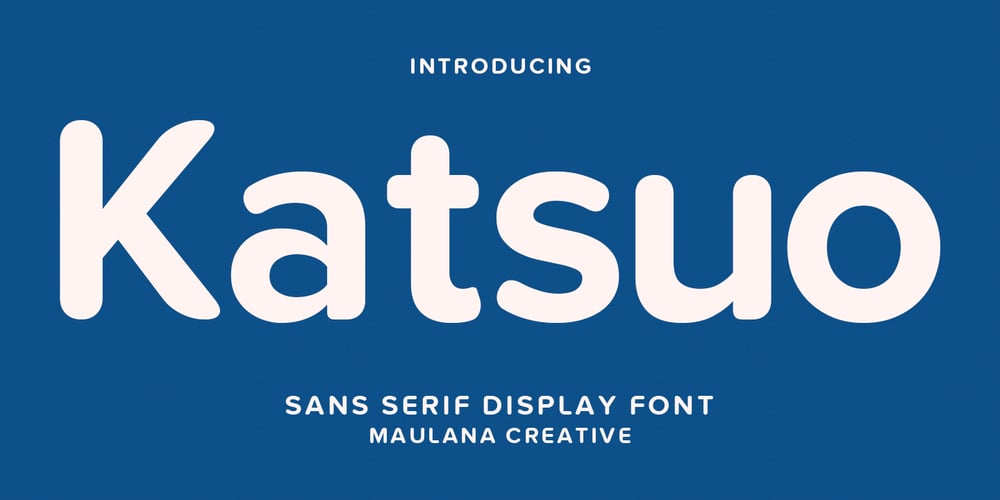
MC Katsuo Font Family was designed by Gilang Maulana and published by Maulana Creative. MC Katsuo contains 1 styles and family package options. Katsuo is a sans display font. With bold tall and sharp stroke, fun character with a bit of ligatures and alternates. To give you an extra creative work. Katsuo font support multilingual more than 100+ language. This font is good for logo design, Social media, Movie Titles, Books Titles, a short text even a long text letter and good for your secondary text font with sans or serif. Make a stunning work with Katsuo font.Cheers,Maulana Creative